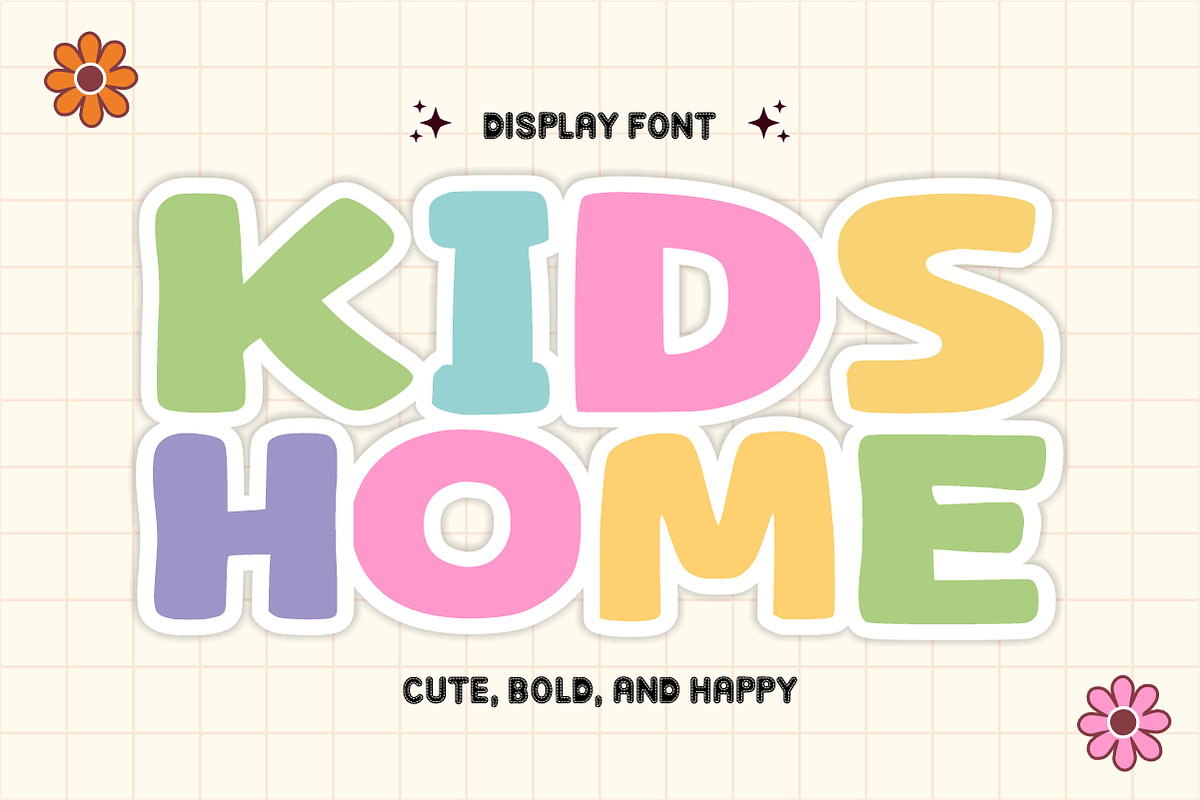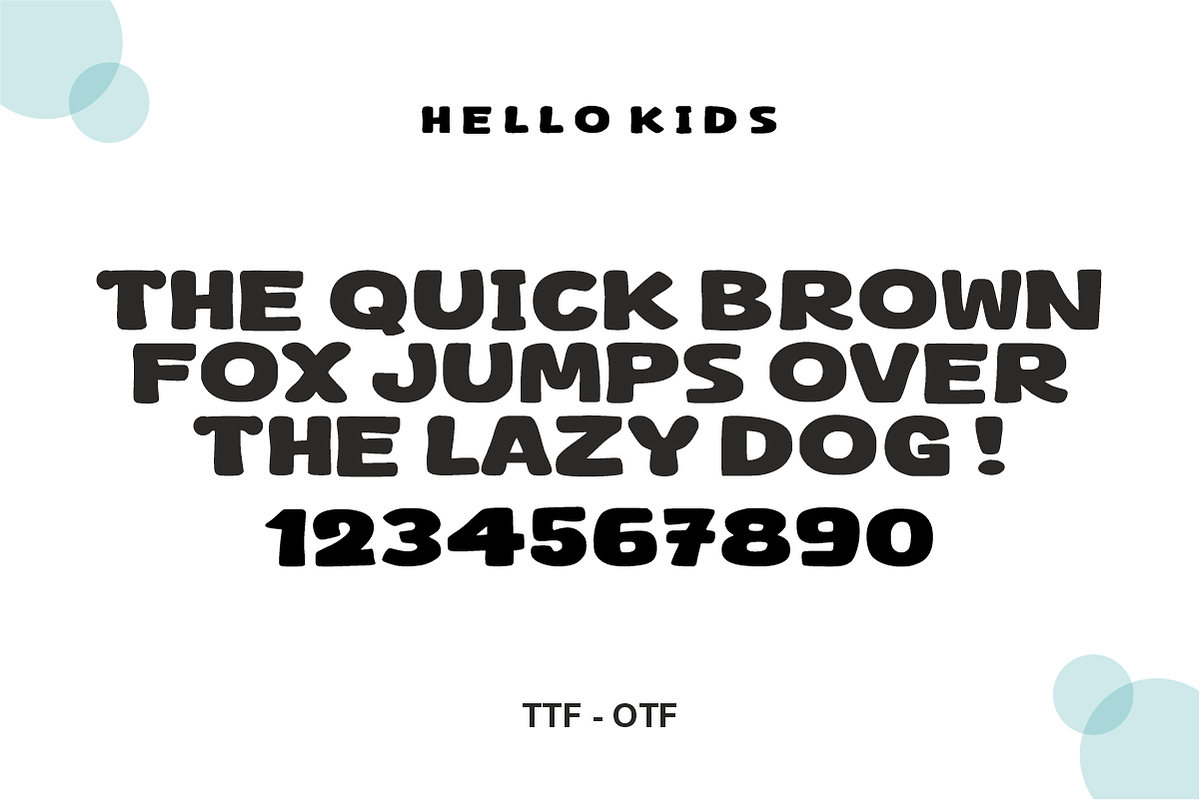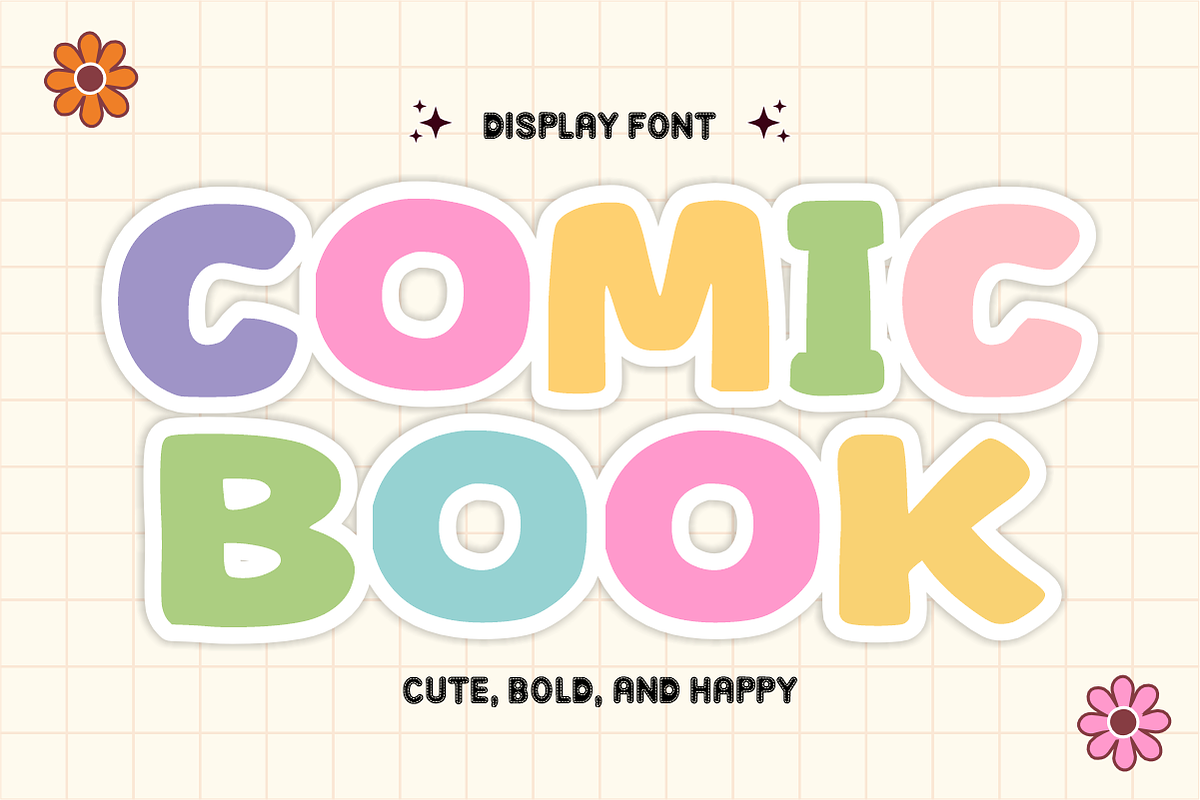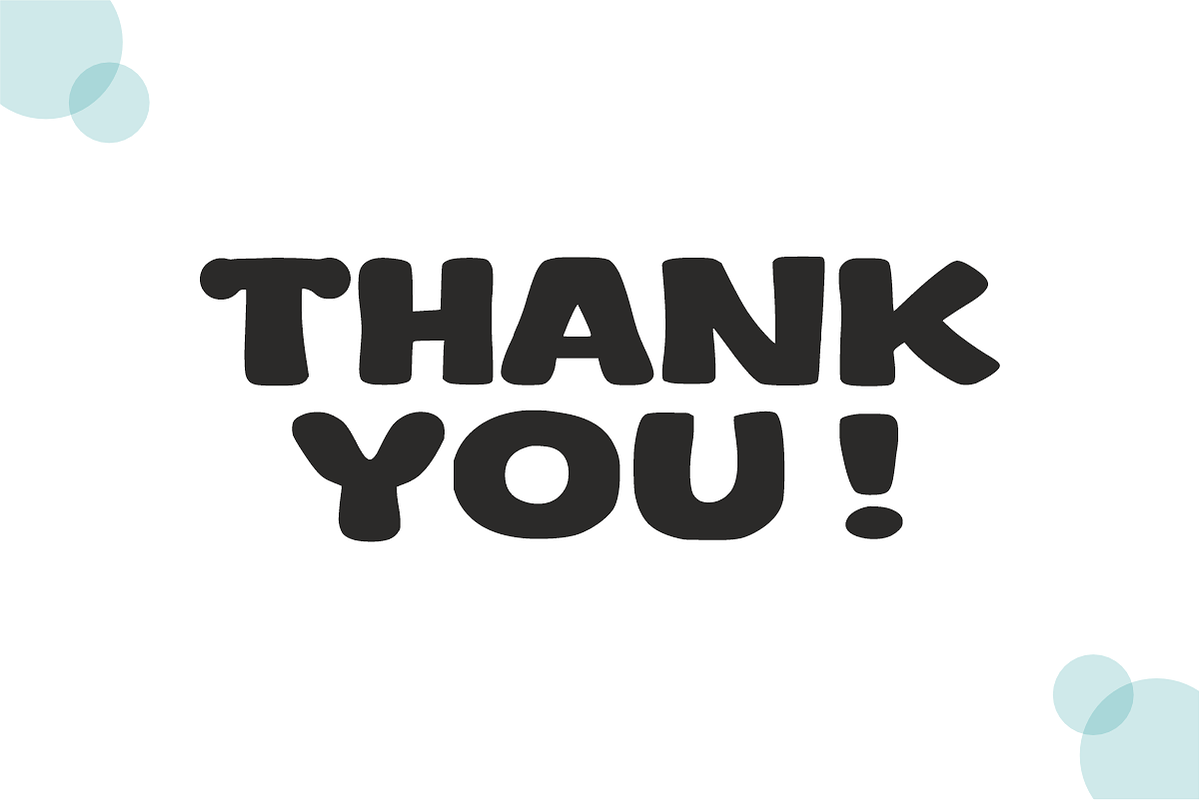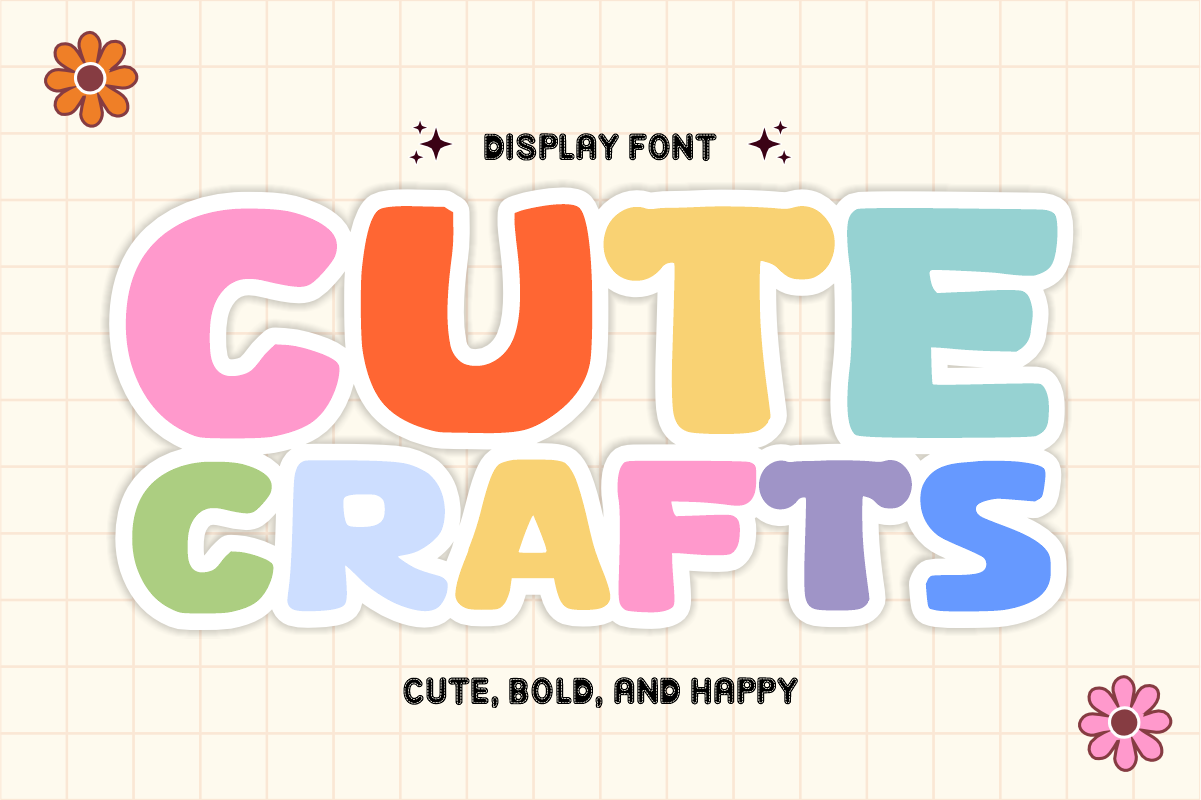
Cute Crafts – Playful Display Font
Cute Crafts – Bubbly & Bold Playful Display Font ✨🎈
Bring a burst of happiness and a touch of whimsy to every design!
Cute Crafts is a thick, rounded display font designed to radiate joy and creativity. With its soft, bubbly silhouette and bold presence, this font is the perfect choice for projects that need to feel approachable, friendly, and full of life. Whether you are creating for children, DIY enthusiasts, or modern lifestyle brands, Cute Crafts ensures your message is delivered with a smile.
While the preview showcases a colorful sticker-inspired look, please note that this is not a color font. This gives you complete creative control to apply your own favorite palettes, gradients, or outlines in your preferred design software.
🌟 Why Cute Crafts is a Great Addition to Your Toolkit:
Bold & Impactful: Its thick weight ensures that your headlines remain the center of attention and are easily readable.
Craft-Ready Outlines: Designed with smooth, clean edges, making it ideal for vinyl cutting machines like Cricut and Silhouette.
Universally Friendly: The soft, rounded curves make it perfect for kids' products, nursery decor, and feminine branding.
🎨 Perfect For:
Uppercase Letters (A-Z): Bold, expressive characters with a consistent playful vibe.
Numbers (0-9) & Simple Symbols: All the essentials for complete design layouts.